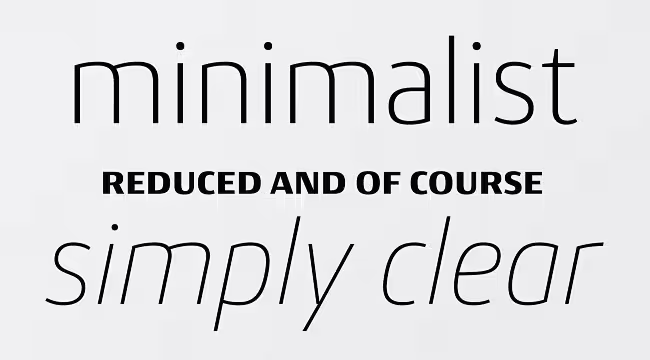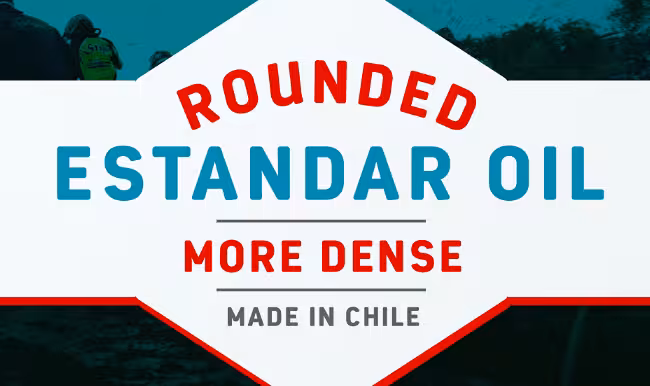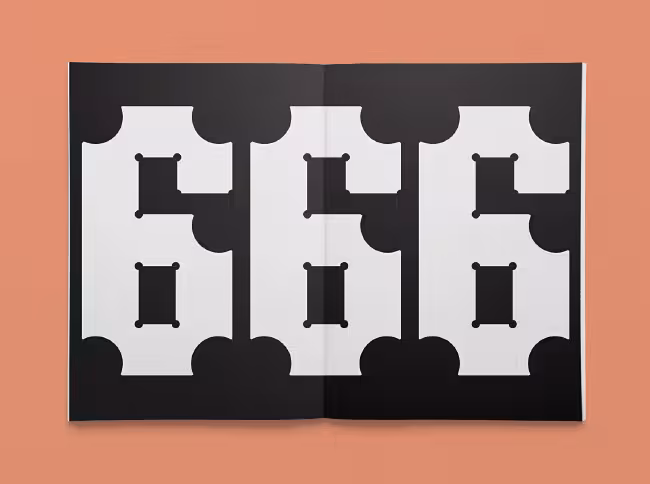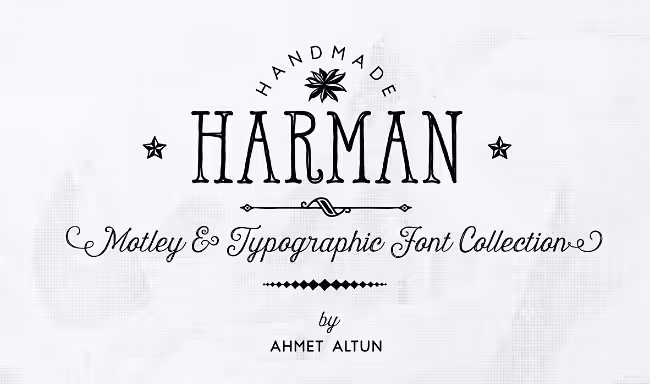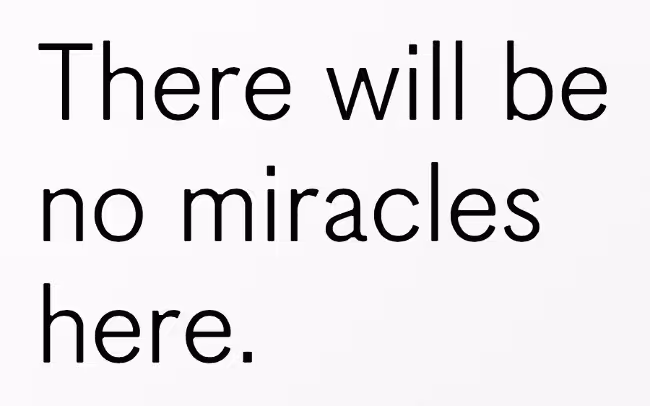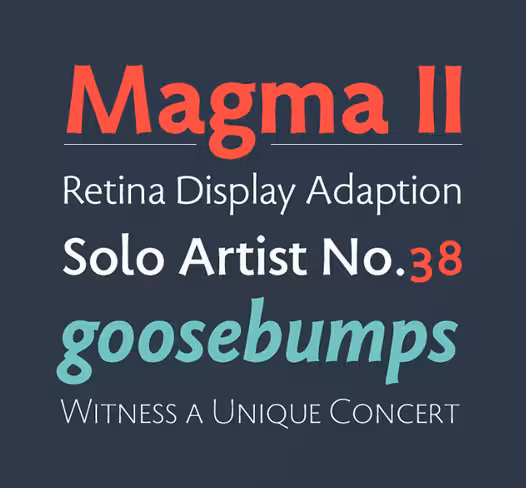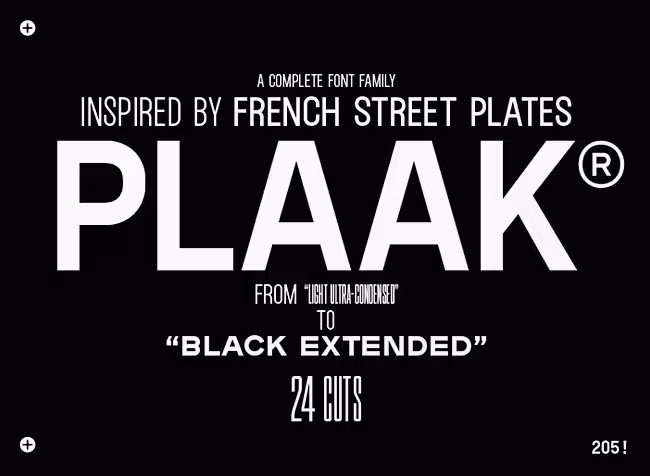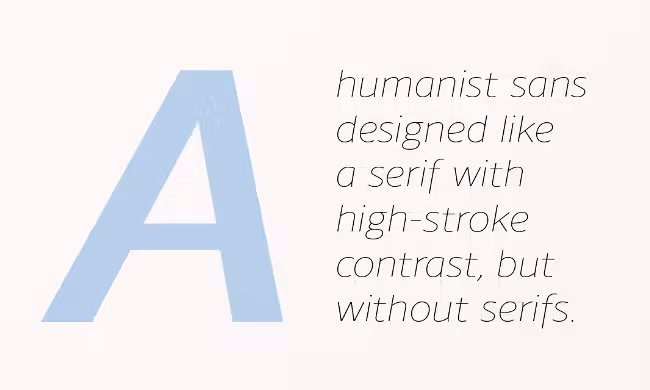
Time to count down another month of beautiful typefaces. What do you think of our picks from September?
Lián Types: Selfie
Selfie is a connected sans based on vintage signage scripts.
Angie Makes: Hollyhock
Hollyhock is a modern and messy calligraphy font with wild, tall letterforms that refuse to be tamed.
Brittney Murphy: Jasmine
Jasmine a flowing script font that works well for text, headlines or quotes.
Stone Type Foundry: Magma
Magma is a rare sans serif typeface family designed explicitly for use in both text and display applications.
Fort Foundry: Factoria
Factoria is a hardworking, geometric, square slab family.
TDF: Hardy
A display typeface whose circular cuts replace each angled intersection.
Hoftype: Orgon Slab
Orgon Slab complements the Orgon family with its clear, unexcited appearance.
Typetanic: Gibbs
Gibbs is a tough, sophisticated sans that is both stylish and comfortable to read.
Latinotype: Uomo
Uomo is a contemporary typographic system that explores geometric style and Italian art deco.
Ahmet Altun: Harman
Harman includes seven fonts and their inline forms.
Editions 205: Plaak
Inspired by the characters on french street plates.
Andinistas: Bemol
Bemol features craftsman style, worn edges and highly spontaneous look.
Storm: Pepone
Pepone is a contemporary, discreet book serif.
Binnenland: Korpus Grotesk
Korpus Grotesk imitates the technical characteristics of phototypesetting.
S-Core: Core Escher
Core Escher is an optical illusion type family inspired by the works of M.C. Escher.
Nils Types: Conto
Conto is a clear and reduced sans serif typeface in eight weights.
Resistenza: Nautica
Nautica is a script typeface inspired by brush pen strokes.
Fontfabric: Nexa Rust
Nexa Rust is a multifaceted font system with a warm, rough look.
Storm: St. Croce
St. Croce is based on worn out lettering on tombstones in the St. Croce Basilica in Florence.
Corradine Fonts: Whisky
Whisky is a blackletter font family with a casual touch.
Latinotype: Estandar Rounded
Estandar Rounded is a retro and vintage wayfinding sans serif.
The Northern Block: Schar
Schar is a humanist sans designed like a serif with high stroke contrast, but without serifs.
PintassilgoPrints: Marker Aid
Marker Aid was drawn with a dry chisel felt tip marker, resulting in two striking, detail rich fonts.